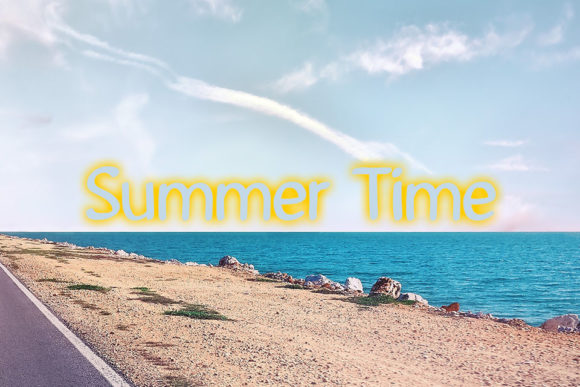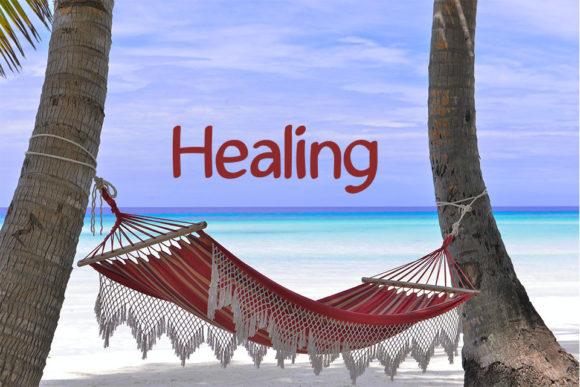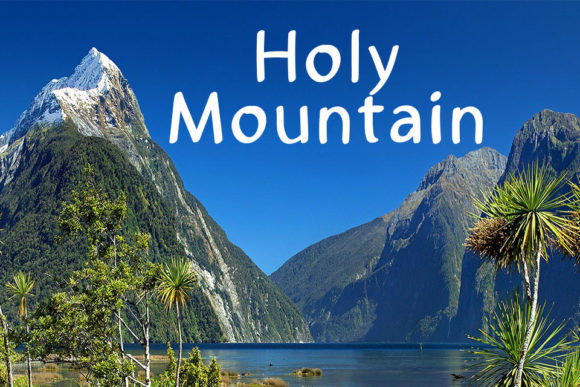
Introduction to Maestro Font
Imagine you’re working on a creative project, pouring your heart and soul into every detail. The perfect typography can make all the difference. You search for the ideal font, something that exudes elegance and sophistication. Suddenly, you stumble upon the Maestro Font – a stunning handwritten font that will elevate your design to new heights.
With its masterful blend of classic calligraphy and modern flair, the Maestro Font is the perfect design resource for any creative project. Its high quality and versatility make it an invaluable tool for designers seeking to add a touch of sophistication to their work.
Whether you’re working on a branding project, creating a beautiful invitation, or crafting a stunning website, the Maestro Font is sure to bring your vision to life. And the best part? It’s available for free download, making it an accessible high-quality design resource for all.
Maestro Font: Key Features
- High-quality design resource suitable for creative projects, offering a professional and sophisticated look.
- Resolution-independent design, ensuring crisp and clear text at any size or resolution, from web to print applications.
- Unique characteristic: transparent background option, allowing for flexibility in design composition and easy layering with other elements.
- Comprehensive character set, including a wide range of languages and special characters, making it a versatile choice for international projects.
- Perfect for creative professionals, designers, and artists seeking a high-quality design resource for their projects.
Honest Review: Maestro Font
As a designer, I’m always on the lookout for high-quality design resources that can elevate my creative projects. Recently, I came across the Maestro Font, and I’m excited to share my thoughts on it.
What works well: ✨ The Maestro Font has a clean and modern design that makes it perfect for a wide range of creative projects. The font is highly legible, and its transparency feature allows for seamless integration with backgrounds, making it a great choice for designs with transparent backgrounds. The font also comes in a variety of weights, making it versatile and easy to use.
Overall impression: The Maestro Font is a solid choice for designers who need a clean and modern font for their creative projects. While it has some limitations, its high quality and free download make it a great design resource for personal projects.
- Perfect for designs with transparent backgrounds
- Highly legible and versatile
Tips for Getting the Most Out of Maestro Font
To get the most out of the Maestro Font, use it in conjunction with other high-quality design resources. Experiment with different font sizes, colors, and combinations to create a unique and eye-catching design. Additionally, use the font with a transparent background to give your design a professional and high-quality look.
Common Use Cases for Maestro Font
The Maestro Font is a versatile design resource that can be used in a variety of creative projects. Some common use cases include creating presentations, resumes, and other professional documents, as well as designing logos, business cards, and other marketing materials.
Can I use the Maestro Font with a transparent background?
Yes, the Maestro Font supports transparent backgrounds, making it perfect for creating designs with a clear or semi-transparent background. To use the font with a transparent background, simply use a design software that supports font embedding, such as Adobe Illustrator or Canva, and set the font’s background to transparent.